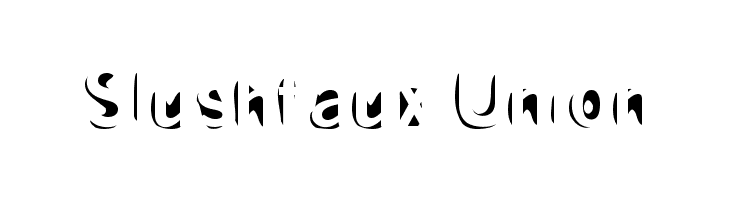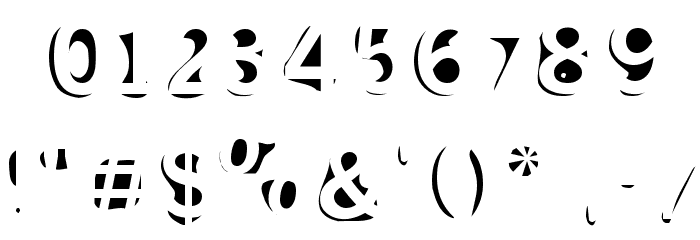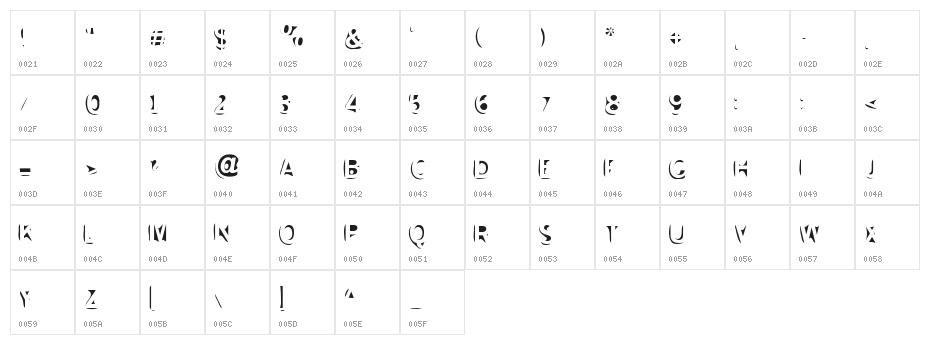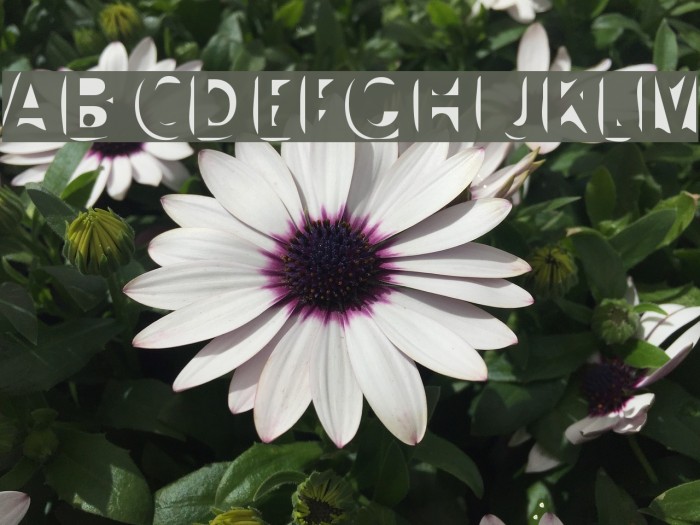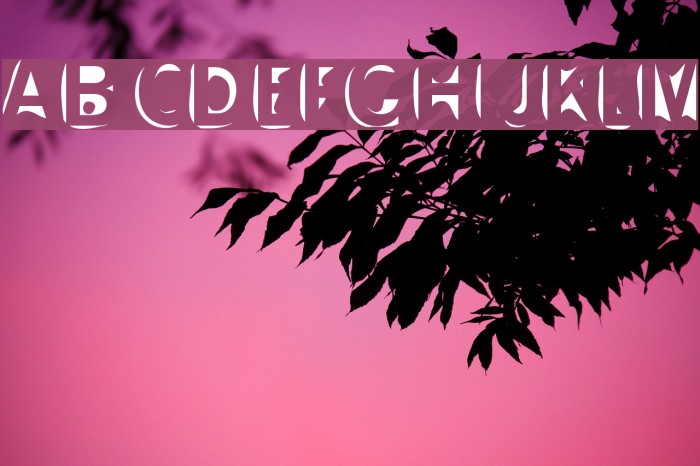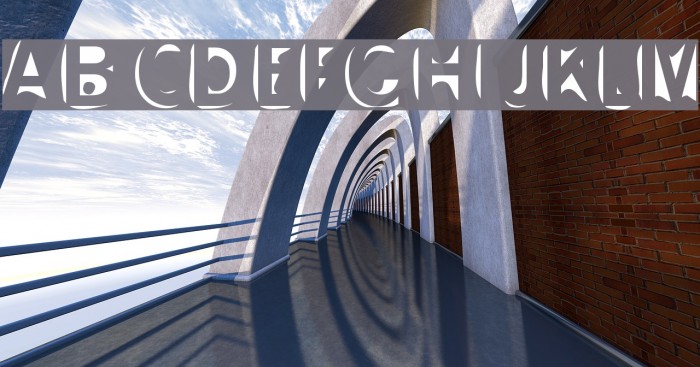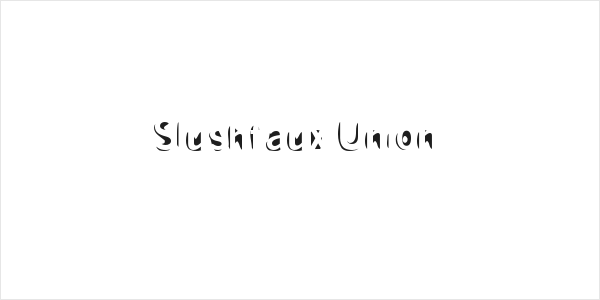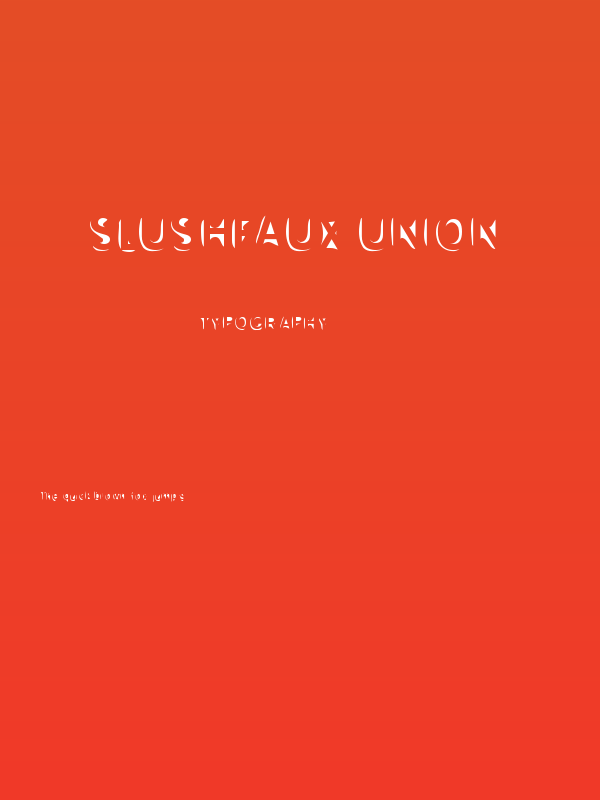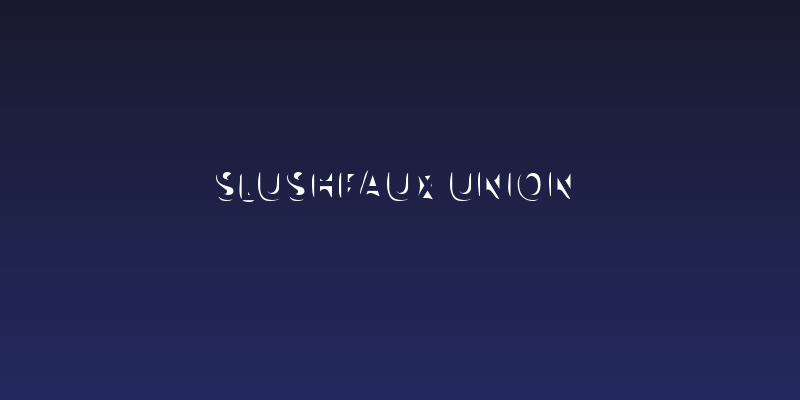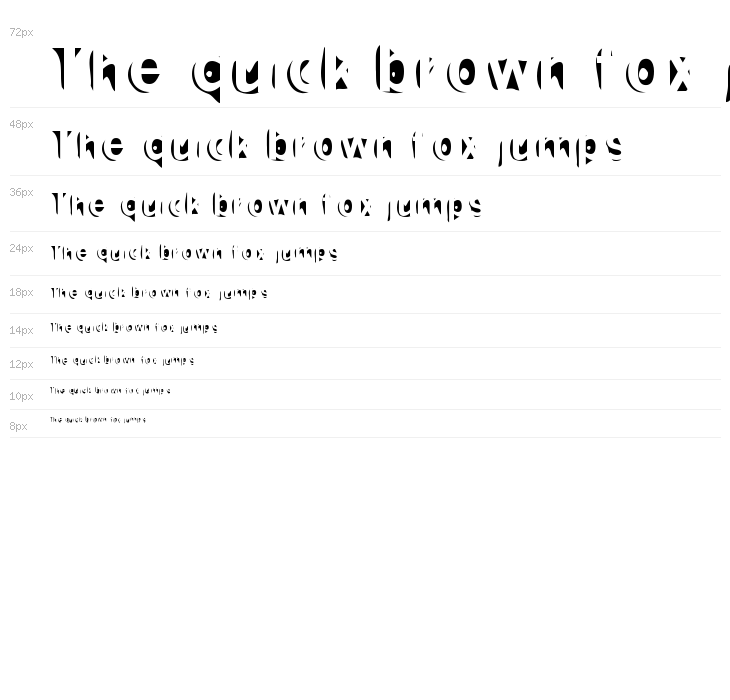
Slushfaux Union Font
Slushfaux Union Description
This font features a unique and artistic design with a stencil-like appearance. Each character is composed of distinct cut-out sections, creating a dynamic and fragmented look. The uppercase and lowercase letters maintain a consistent style, with sharp angles and bold strokes that give the font a modern and edgy feel. The numbers and special characters follow the same design principles, ensuring uniformity across all elements. This font stands out due to its high contrast and decorative nature, making it suitable for creative and eye-catching designs.